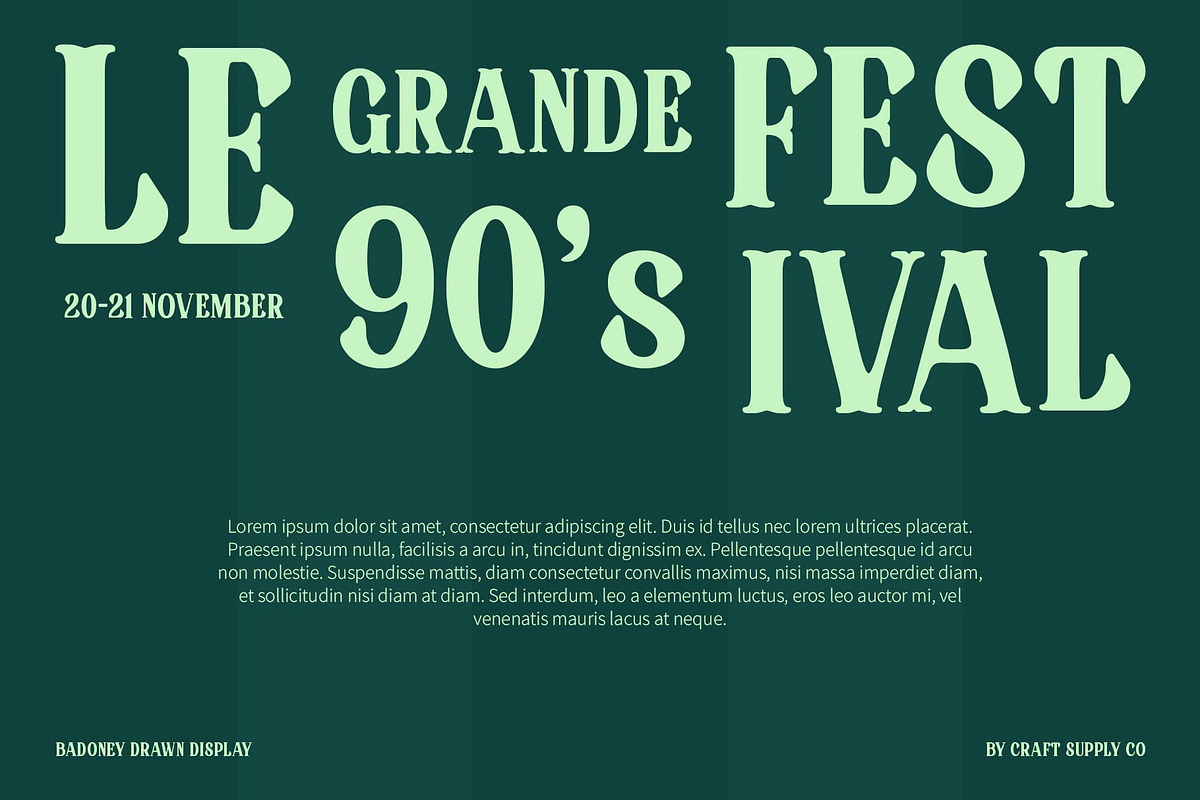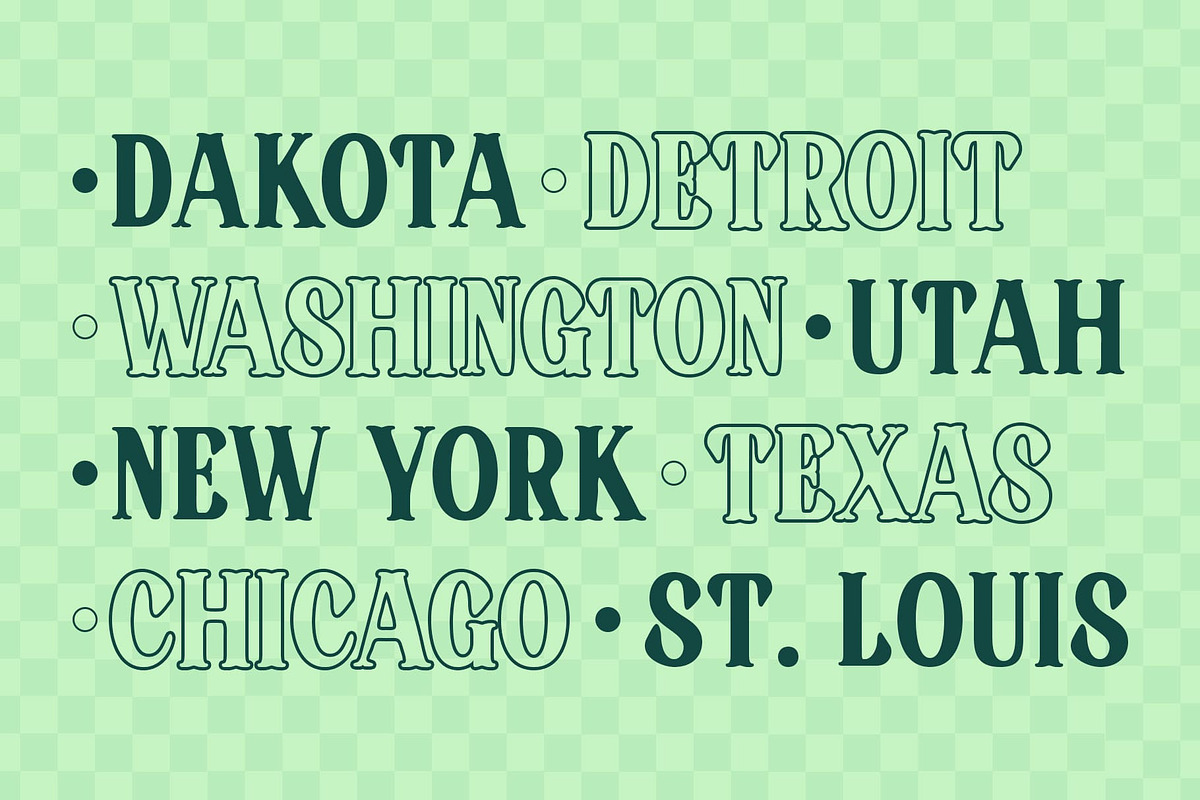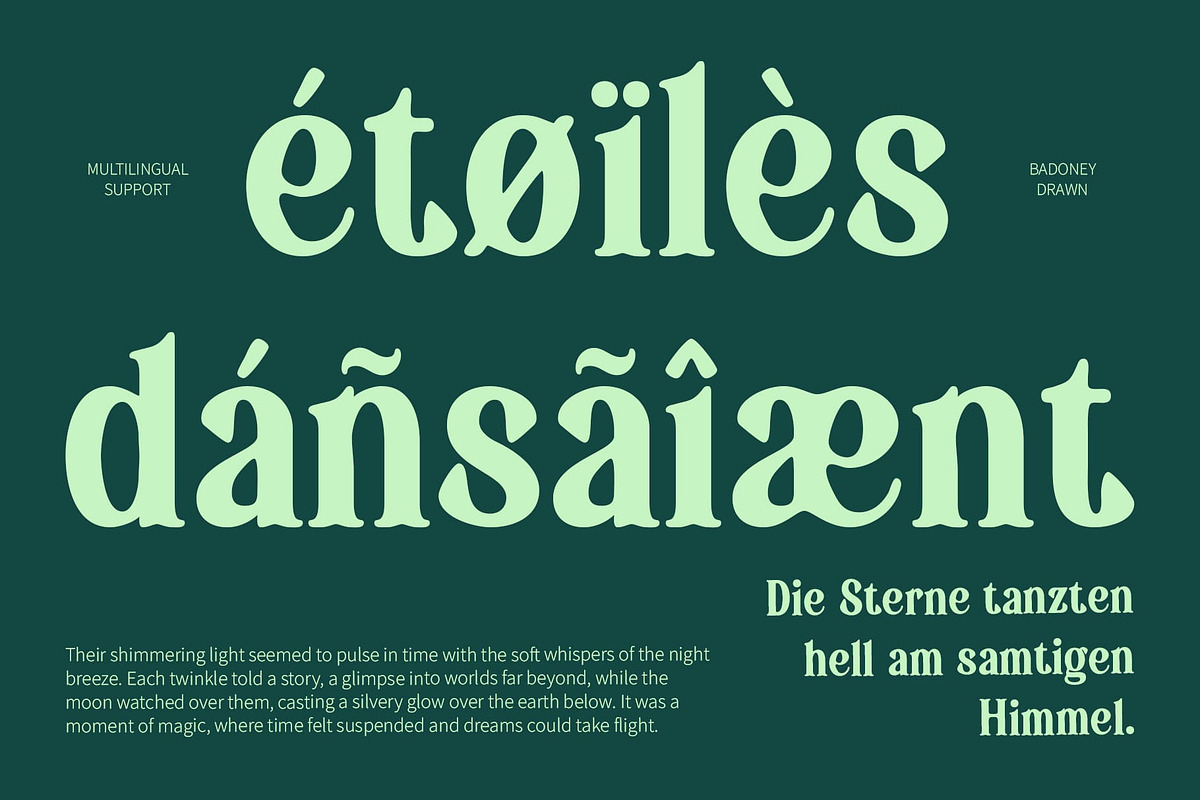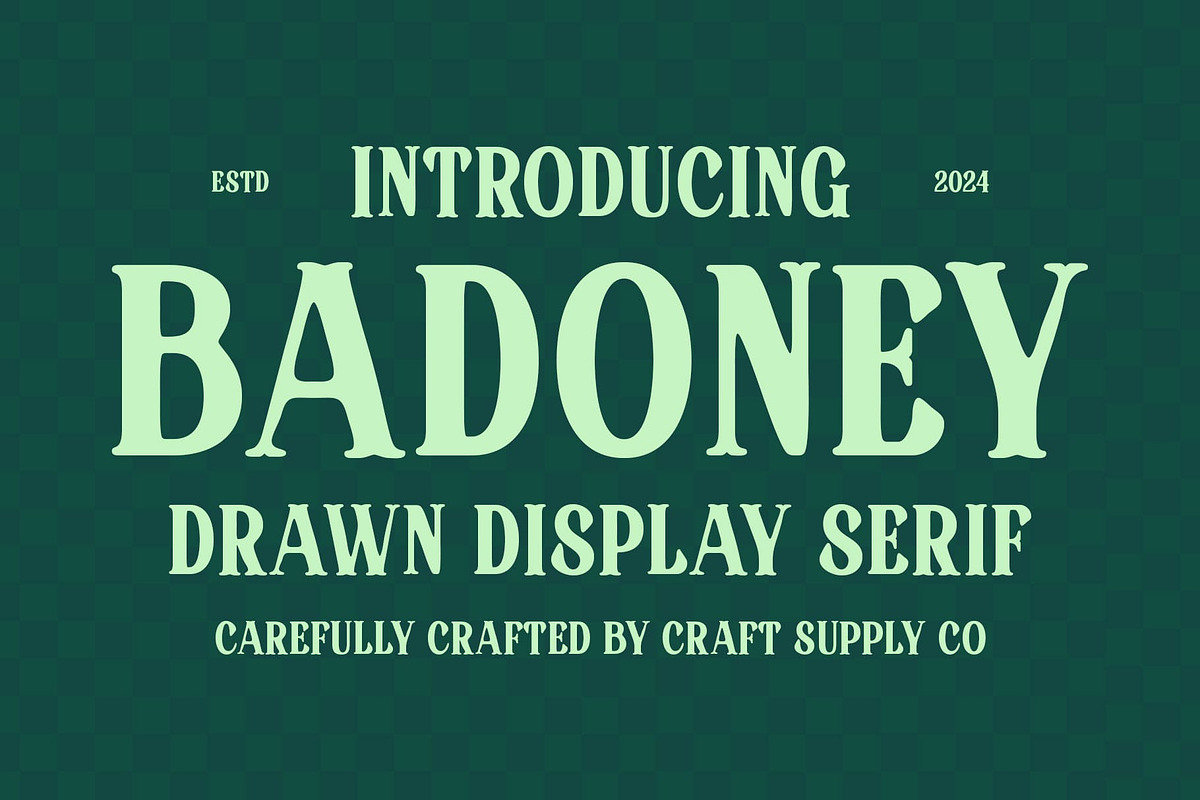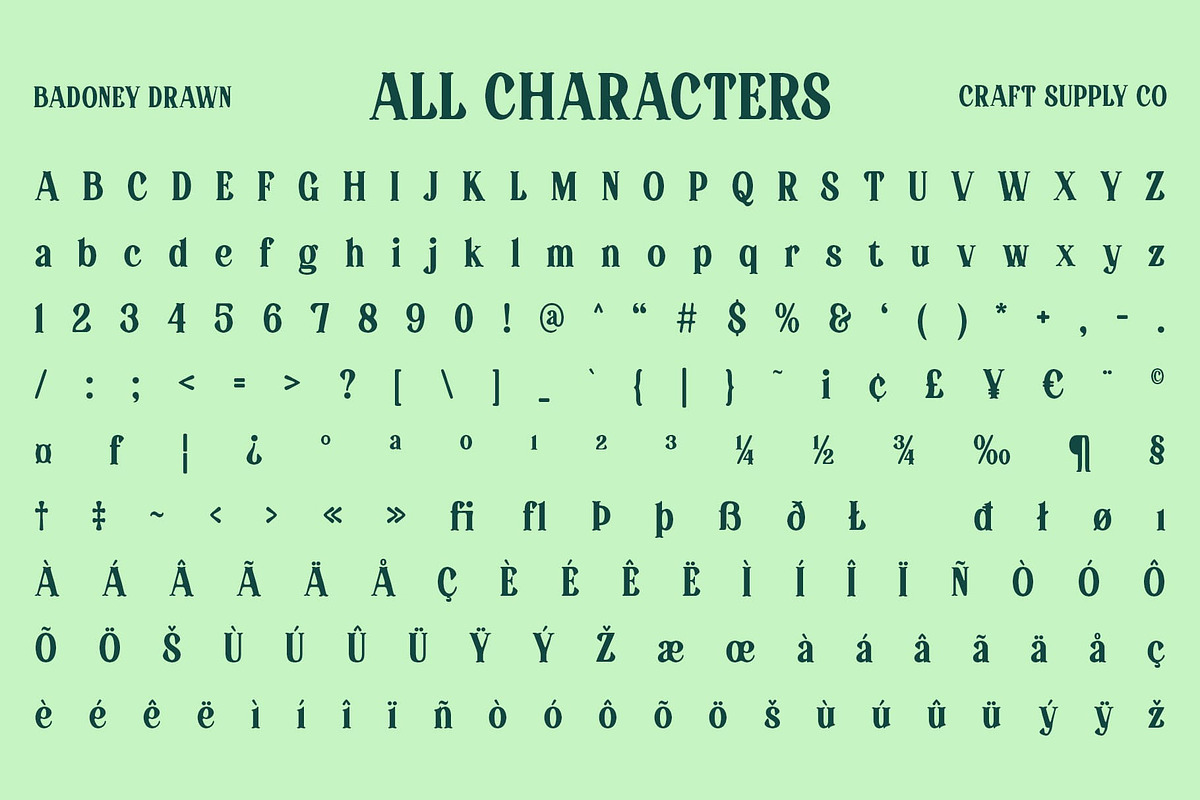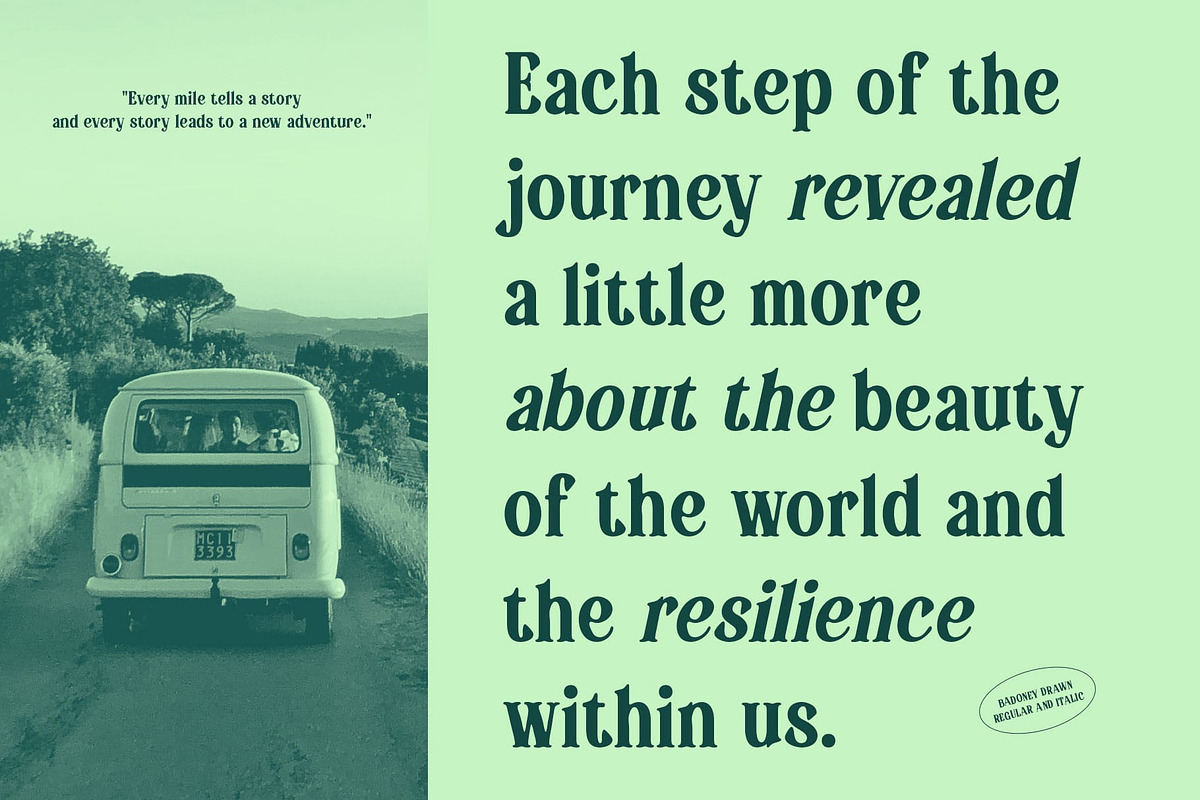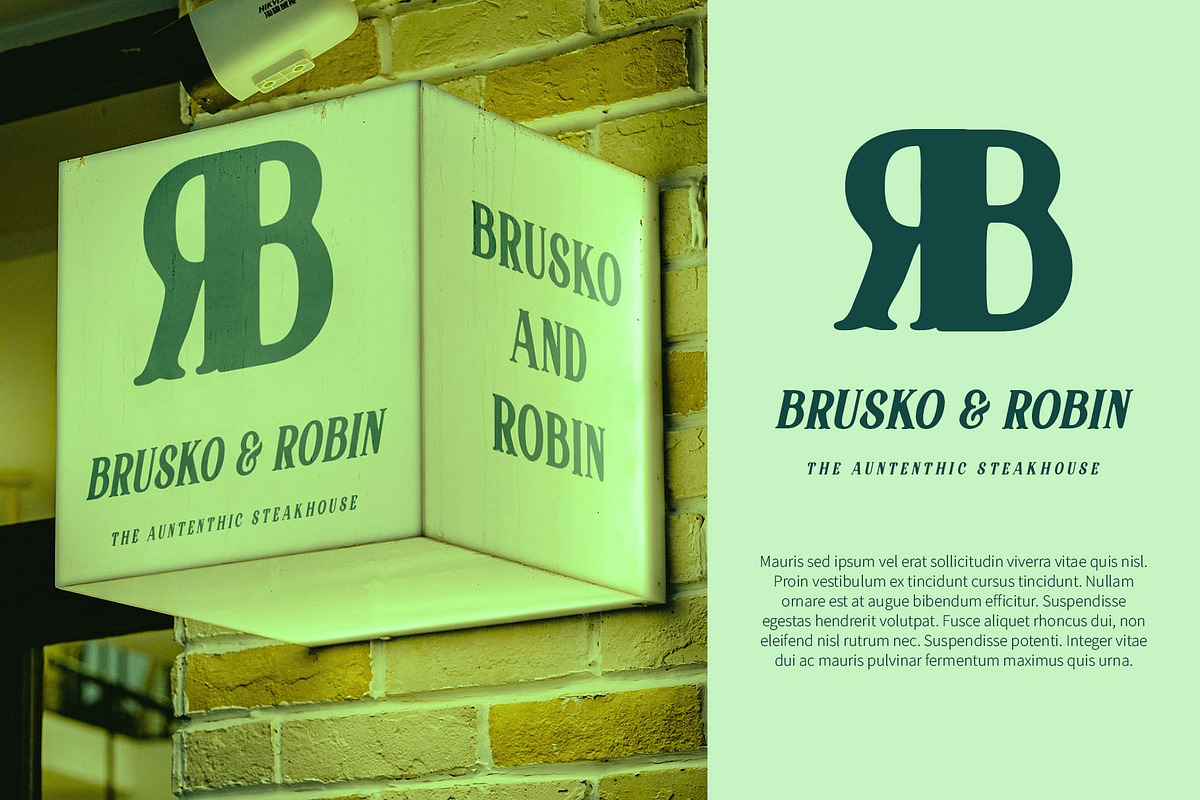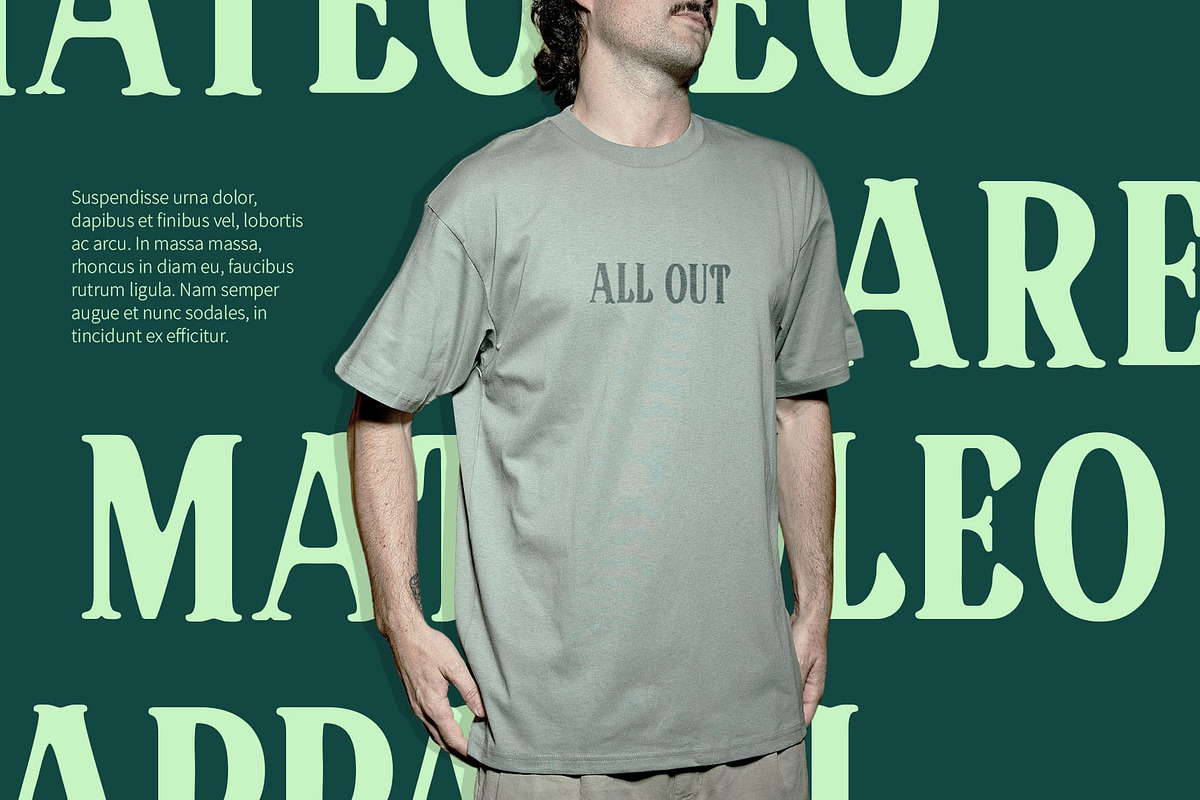
Badoney Drawn
Badoney Drawn Font: A Timeless Classic with Vintage Charm
Classic Serif with Vintage Retro Vibe Badoney Drawn is a classic serif font that beautifully combines vintage aesthetics with a contemporary flair. Its design is inspired by the elegance of past eras, featuring traditional serif letters adorned with fine yet distinctive details. This font evokes a sense of nostalgia, making it ideal for projects that aim to capture the essence of a bygone era while remaining relevant in today’s design landscape.
Handcrafted Artisanal Touch What sets Badoney Drawn apart is its unique drawn effect, which adds a handcrafted, artisanal quality to the font. This effect enhances the antique and authentic feel of the letters, creating a warm and inviting atmosphere that draws the viewer in. Each character seems lovingly crafted, providing a personal touch that digital fonts often lack. This artisanal element makes Badoney Drawn perfect for creative projects that celebrate craftsmanship and artistry.
Versatile for Creative Projects This font is incredibly versatile, making it suitable for a wide range of applications, from posters and branding to invitations and editorial designs. Its vintage charm is perfect for projects that seek to create a classic and elegant impression, while the drawn effect ensures it stands out in any context.
- Badoney Drawn Regular
- Badoney Drawn Italic